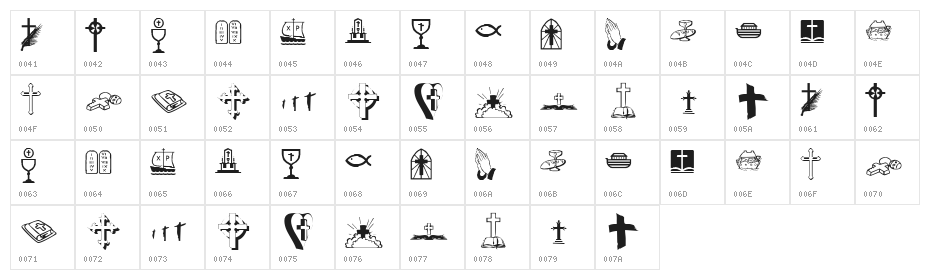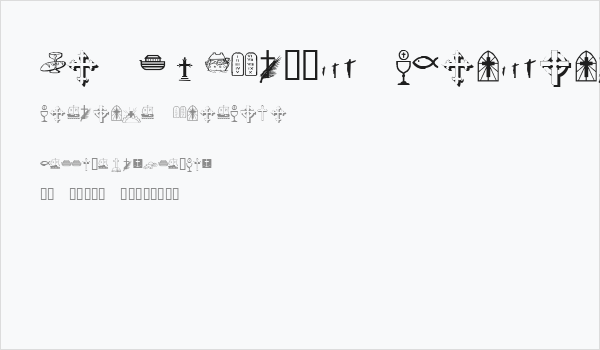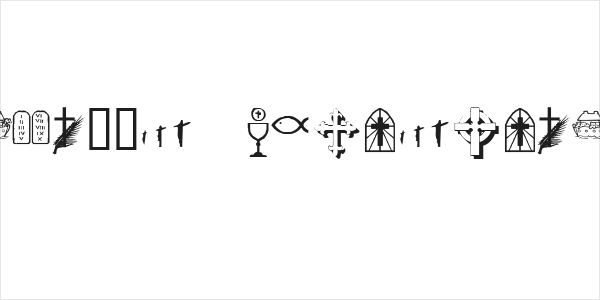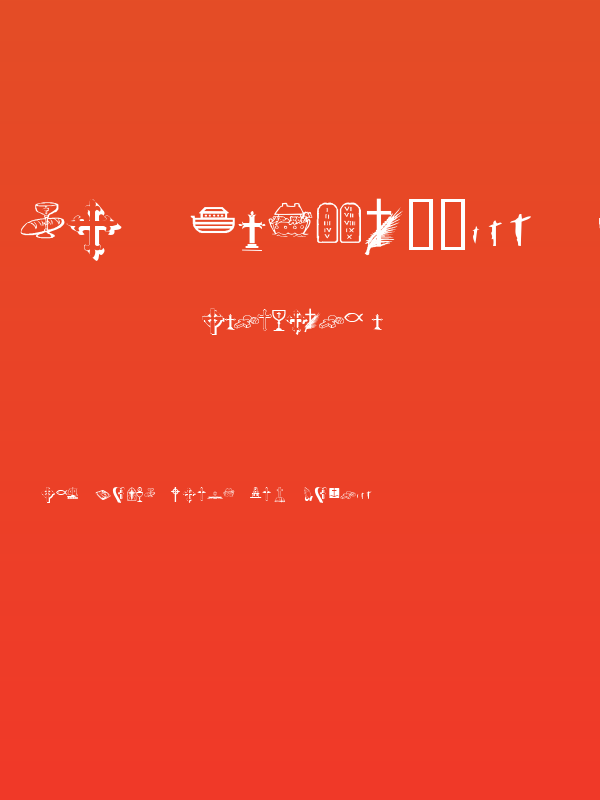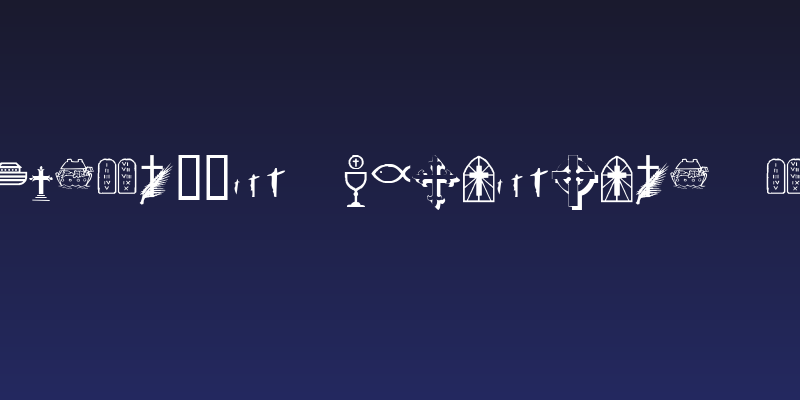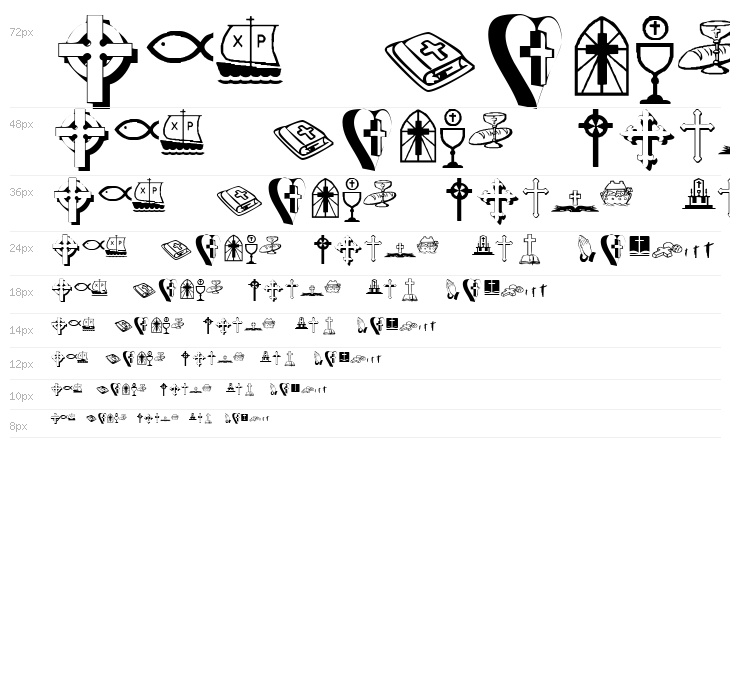
KR Lynda's Christian Dings Font
KR Lynda's Christian Dings Description
This collection of symbols is a decorative dingbat font featuring a variety of Christian-themed icons. The symbols include crosses, chalices, praying hands, doves, and other religious imagery, each intricately designed to convey spiritual themes. The icons are bold and clear, making them suitable for various design projects that require a religious or spiritual touch. The style is consistent throughout, with a focus on traditional Christian symbols, providing a cohesive look that can be used in religious publications, church bulletins, or event programs. The symbols are well-spaced, ensuring clarity and readability.
| Use Case | Logos, Decorative elements |
| Proposed Projects | Ideal for religious publications, church bulletins, event programs, and spiritual-themed designs. |